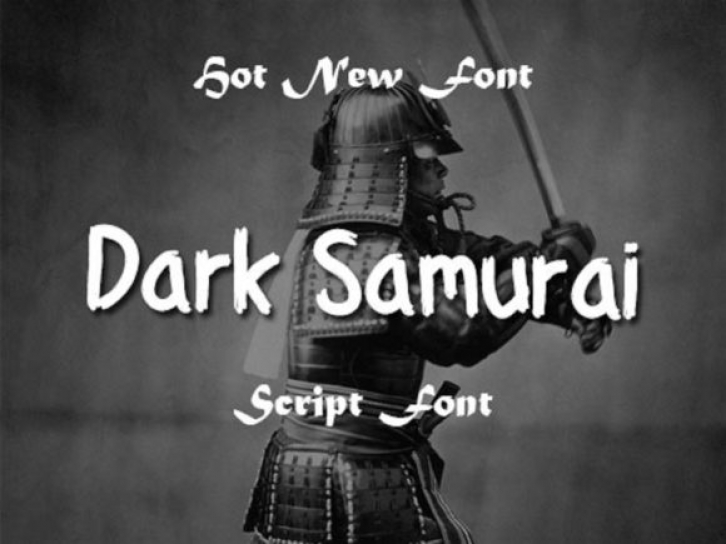
Dark Samurai is a cool, natural and simple brushed display font. Whether you’re using it for crafting, digital designing, presentations or greeting cards making, it’s perfect!